Stencil fonts are a powerful and distinctive typeface style that continues to hold a firm place in both digital and print design. Known for their bold lines and strategic cutouts, stencil fonts offer a unique combination of utility and style, making them perfect for a wide range of creative projects. Whether you’re designing military posters, vintage-themed branding, or urban apparel graphics, stencil fonts bring a commanding visual impact that few other fonts can match.
What Are Stencil Fonts?
Stencil fonts are typefaces that are designed to appear as if they’ve been cut out or spray-painted using a stencil. The signature feature of these fonts is the presence of small gaps or breaks within each letterform. These breaks allow letters to maintain their structure when cut from a surface—just like real stencils used for painting or signage.
This practical origin gives stencil fonts a rugged, industrial feel. They are often associated with military, shipping, construction, and street art themes, but they’ve also evolved into a trendy option for branding, posters, and digital artwork.
Popular Uses of Stencil Fonts
-
Military Designs
With their origins tied to stenciled crates and equipment, these fonts are a go-to for military or tactical branding. -
Urban and Industrial Art
Street artists and graphic designers use stencil fonts to replicate the raw look of graffiti and industrial labels. -
Vintage Packaging
Many brands use stencil typefaces for a nostalgic or utilitarian aesthetic in packaging and labeling. -
Event Posters and Flyers
Their striking appearance works well for music festivals, protests, sports events, or any occasion that requires bold typography.
Boston Traffic
There’s something about urban typography that just clicks with me, and Boston Traffic nails that street-smart aesthetic perfectly. This font feels like it was born on a busy intersection – bold enough to grab attention but refined enough for serious design work. I’ve found it works incredibly well for headlines that need to convey both authority and approachability.
CargoCrate
CargoCrate brings that industrial warehouse vibe that’s been trending in design circles lately. What I love about this typeface is how it manages to feel both sturdy and modern at the same time. It’s perfect for brands that want to communicate reliability without looking outdated – think logistics companies or craft breweries that want that authentic, no-nonsense appeal.
Due Date
Sometimes you need a font that means business, and Due Date delivers exactly that energy. This typeface has this great sense of urgency built right into its letterforms – hence the name, I suppose. I’ve used it for project timelines and deadline-focused materials where you really need the typography to reinforce the message that time matters.
Gunplay
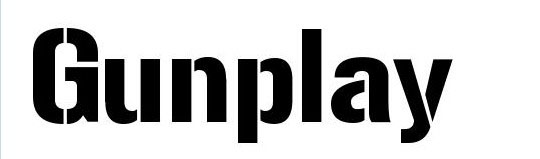
Despite its edgy name, Gunplay is surprisingly versatile for display work. The letterforms have this sharp, angular quality that works brilliantly for gaming graphics, action movie posters, or any project that needs to convey intensity. It’s one of those fonts that immediately sets a tone – you know exactly what kind of energy you’re working with.
Itomi Vinca
Itomi Vinca has this beautiful balance between elegance and readability that makes it stand out in the crowded world of display fonts. There’s something almost botanical about its name and character – it feels organic yet structured. I find myself reaching for it when I need something that’s distinctive but not overwhelming.
Kaiser
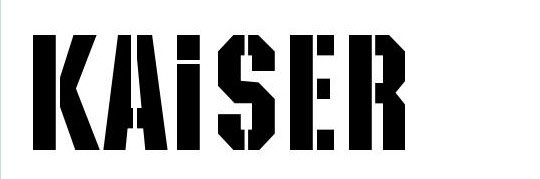
Kaiser commands attention without having to shout for it. This font has that classic European sensibility – strong, confident, and unmistakably authoritative. It’s the kind of typeface that works beautifully for luxury brands or any application where you need to convey heritage and quality. The weight distribution is particularly well-balanced.
Lintsec Regular
Lintsec Regular feels like it emerged from the tech world – clean, functional, and surprisingly friendly for a technical-looking font. I appreciate how readable it remains even at smaller sizes, which makes it more versatile than a lot of display faces. It’s perfect for that modern, slightly futuristic aesthetic without going overboard.
Major Snafu
The name alone tells you this font has personality, and Major Snafu doesn’t disappoint. It’s got this military-inspired aesthetic but with enough character quirks to keep things interesting. I’ve found it works great for projects that need to balance professionalism with a hint of rebellious spirit – think independent magazines or alternative brand identities.
MKStencilsans Black
MKStencilsans Black is exactly what you’d expect from a stencil font, but executed with real finesse. The black weight gives it serious presence on the page, and those characteristic stencil breaks add visual interest without sacrificing legibility. It’s my go-to choice when I need something that screams “industrial strength” but still looks polished.
Rafika
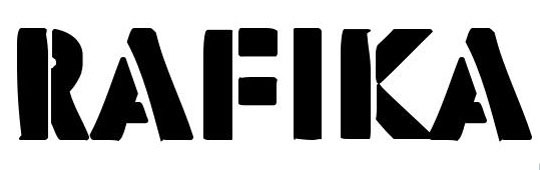
Rafika brings a touch of international flair to any design project. There’s something worldly about this typeface – it feels like it could work equally well for a travel magazine or a cultural arts center. The character shapes have this subtle sophistication that makes even simple text layouts feel more refined.
Carrier Stencil
Carrier Stencil takes the military stencil aesthetic and refines it for contemporary use. What sets it apart from other stencil fonts is how well-proportioned the letterforms are – you get all the visual impact of a stencil cut without the crude, hastily-made feeling that some stencil fonts can have. It’s professional-grade stencil work.
Stencil Export
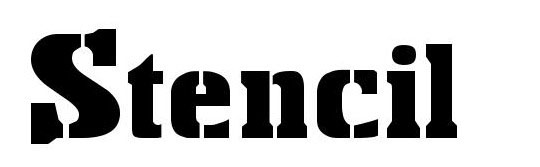
Stencil Export feels like it was designed for shipping containers and warehouse labels, which gives it this authentic industrial credibility. The letterforms are clean and highly functional – this isn’t about decoration, it’s about clear communication in challenging environments. Perfect for brands that want to tap into that logistics and transport aesthetic.
Stencil Four
There’s a mathematical precision to Stencil Four that I really appreciate. Each character feels carefully calculated, with stencil breaks that enhance rather than interrupt the reading experience. It’s one of those fonts that works equally well for technical documentation and creative projects – that versatility is rare in the stencil category.
Stencil Gothic
Stencil Gothic brings together two classic typographic traditions in a way that shouldn’t work but absolutely does. The gothic influences give it more character than your typical stencil font, while the stencil cuts keep it grounded in that practical, functional aesthetic. It’s perfect for projects that need both personality and authority.
Stencilia
Stencilia feels like the refined cousin of traditional stencil fonts. The letterforms maintain that characteristic stencil functionality while adding just enough sophistication to work in more upscale applications. I’ve used it for high-end packaging projects where clients wanted that industrial reference but needed something more polished.
Weltron Urban
Weltron Urban captures that gritty city energy perfectly. This font feels like it grew up on subway walls and construction sites – there’s real urban authenticity in these letterforms. It’s ideal for projects that need to communicate street credibility or connect with urban culture without trying too hard to be edgy.
Densmore
Densmore has this solid, dependable quality that makes it perfect for brands that need to communicate stability and trustworthiness. The letterforms are substantial without being heavy-handed, and there’s a timeless quality to the design that suggests it’ll age well. I often recommend it for financial services or professional consulting firms.
HVD Peace
Despite its peaceful name, HVD Peace has plenty of visual strength. What I love about this font is how it manages to be both calm and confident – it doesn’t need to be aggressive to make its point. The character spacing and proportions create this sense of harmony that lives up to the name while still maintaining strong visual presence.
Armalite Rifle
Armalite Rifle is unapologetically bold and tactical in its approach to letterform design. The sharp angles and aggressive spacing give it serious impact on the page. While the name might suggest limited applications, I’ve found it works well for any project that needs to convey strength, precision, or cutting-edge technology.
AG Stencil
AG Stencil represents everything good about functional typography. The letters are clean, readable, and purposeful – exactly what you want from a stencil font. There’s no unnecessary decoration here, just solid letterforms that do their job efficiently. It’s particularly effective for wayfinding systems or any application where clarity is paramount.
Sistemas
Sistemas has this systematic, almost algorithmic quality that makes it perfect for tech-related projects. The name suggests organization and methodology, and the letterforms deliver on that promise. I find it works particularly well for software interfaces or any brand that wants to communicate efficiency and logical thinking.
Top Secret
Top Secret brings that classified document aesthetic into contemporary design work. There’s an inherent drama in these letterforms that immediately suggests confidentiality and importance. While it might seem like a novelty font, I’ve found it surprisingly useful for legitimate applications where you need to create a sense of exclusivity or insider access.
ICBM SS-20/25
ICBM SS-20/25 is definitely not your everyday typeface choice, but when you need something with serious military-grade impact, nothing else will do. The technical designation in the name hints at the precision engineering that went into the letterform design. It’s perfect for projects that need to communicate advanced technology or strategic importance.
50 Blizzards
50 Blizzards has this weathered, battle-tested quality that tells a story before you even read the words. The letterforms feel like they’ve survived harsh conditions, which makes it perfect for outdoor brands, extreme sports, or any application where durability and resilience are key messaging points.
President Gas
President Gas closes out this collection with serious political undertones built right into the design. The letterforms have this authoritative weight that commands attention, while subtle details suggest both power and controversy. It’s the kind of font that works for editorial design where you need typography that takes a strong stance.